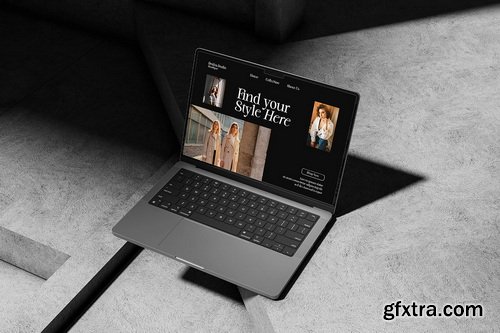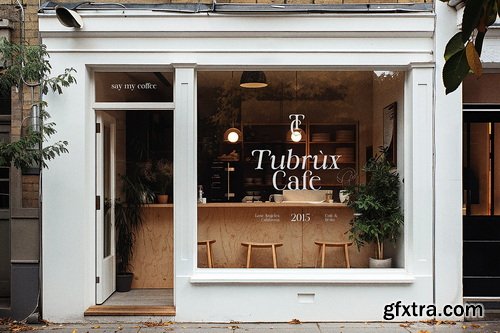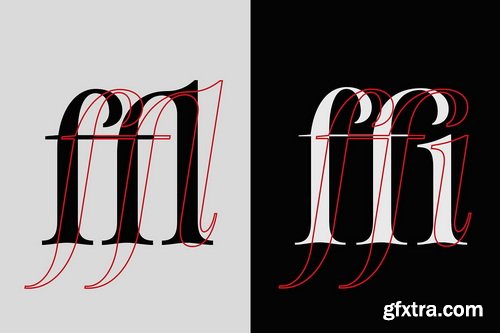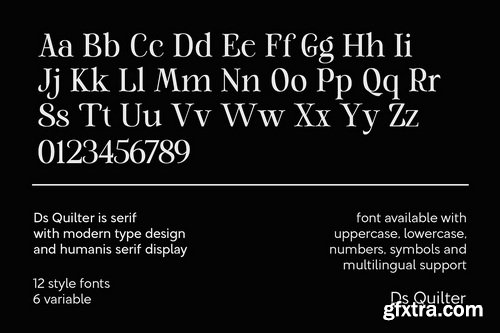
• DS Quilter is a sophisticated variable serif font that blends minimalist elegance with classic structure and modern versatility. From Light to ExtraBold, its seamless weight range empowers designers with unmatched flexibility — perfect for luxury brands that demand both refinement and responsive design.
• Variable font technology – smooth weight transitions (Light to ExtraBold)
• 30 elegant ligatures for natural, flowing text
• 256+ glyphs with multilingual support (Latin-based languages)